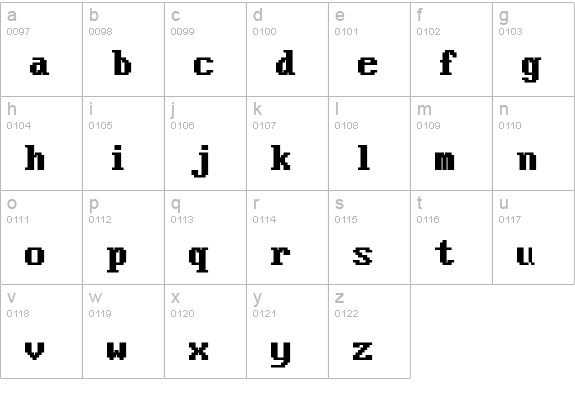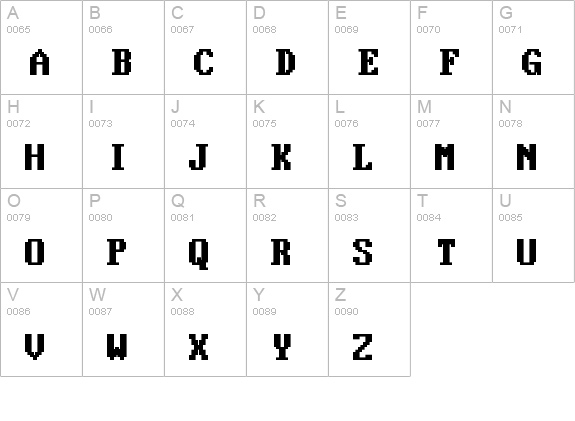
VideoTerminalScreen-Normal Bold Font Details
VideoTerminalScreen-Normal Bold is the standard, neutral variant in the VideoTerminalScreen typeface family \xE2\x80\x94 well suited to general body text, paragraphs, and standard typographic work.
The VideoTerminalScreen-Normal Bold font is a stunning display typeface that captures attention with its bold and powerful presence. It is perfect for making a statement in various creative projects, including titles, logos, posters, and more. The thick, strong lines of this font command attention and convey a sense of confidence and authority. This font's unique combination of boldness and clarity makes it highly readable, even at smaller sizes. The carefully crafted letterforms ensure that every character stands out and catches the eye. Whether you're designing a website, creating a presentation, or working on a branding project, VideoTerminalScreen-Normal Bold will give your work a professional and impactful look. One of the best things about the VideoTerminalScreen-Normal Bold font is that it is freely available to download at FontsMarket.com. This means you can easily access and use this font in your creative projects without any hassle or cost. With its versatility and striking appearance, this font is a valuable asset for designers, artists, and anyone looking to make a bold statement with their typography. Don't miss out on the opportunity to enhance your designs with the VideoTerminalScreen-Normal Bold font. Download it for free at FontsMarket.com and unleash your creativity with this eye-catching typeface.